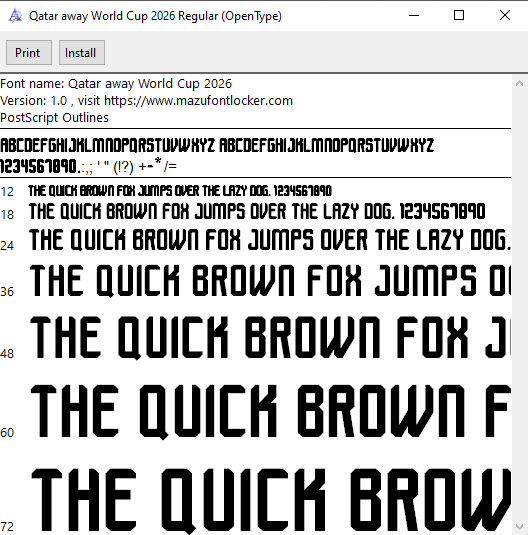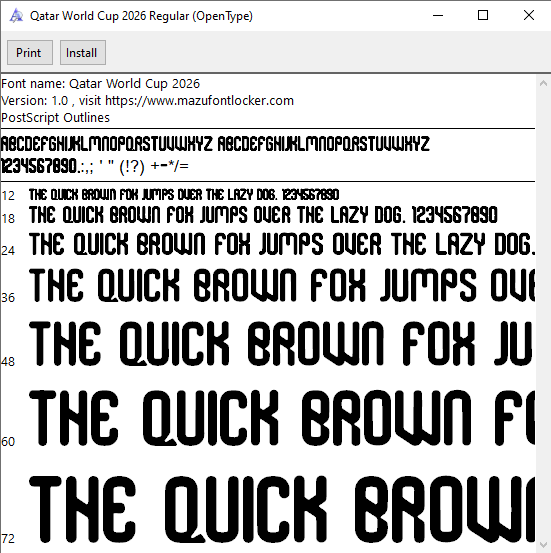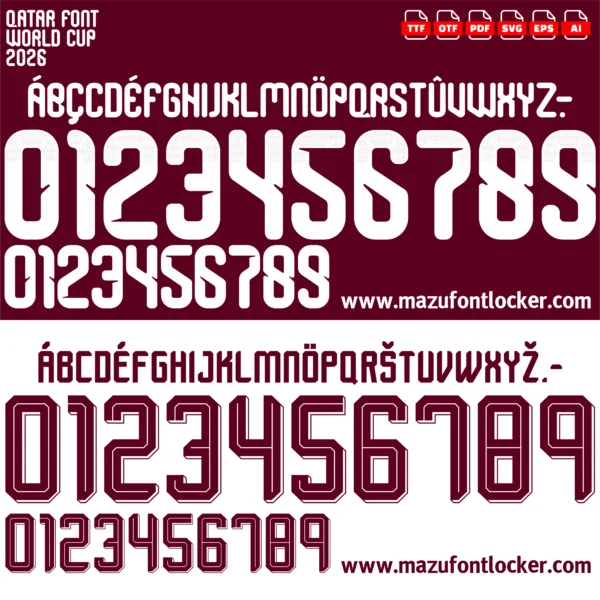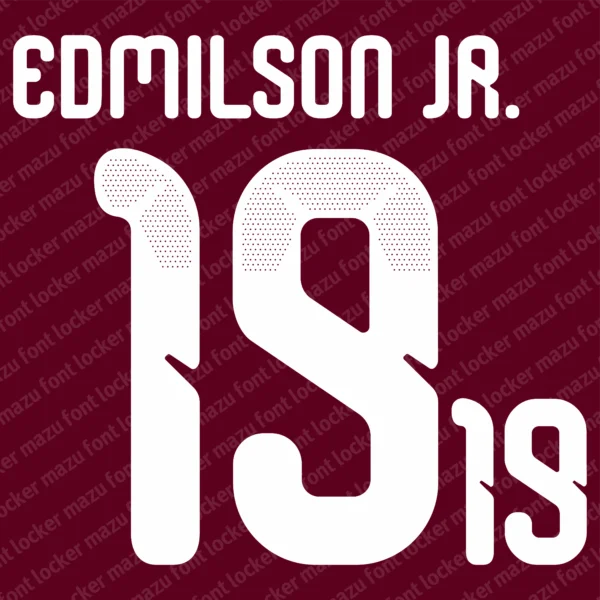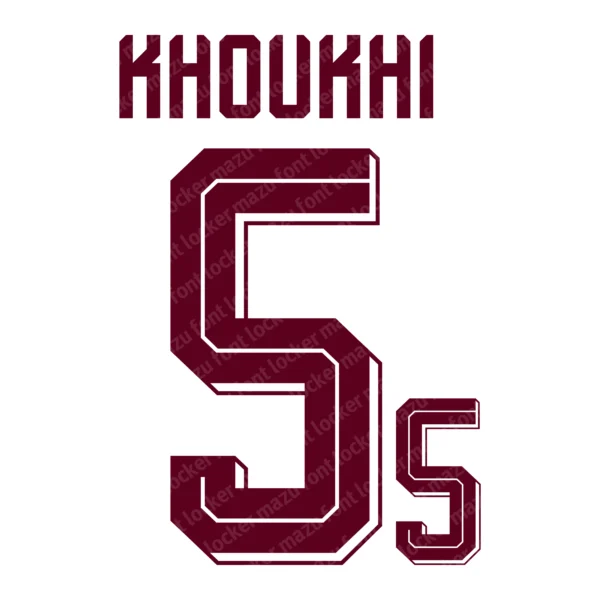
Qatar World Cup 2026 Font Vector – Amazing Premium Al Thumama Masterpiece
This premium font captures the commanding, iconic, majestic, and battle-ready lettering that embodies the unstoppable Qatari spirit — delivering raw desert passion, explosive winning energy, relentless never-say-die mentality, tactical supremacy, and legendary Arabian phoenix grit.
Qatar World Cup 2026 Font Vector – Authentic Maroons Typeface
The Qatar World Cup 2026 Font Vector is a premium typeface that accurately recreates the official match lettering worn by the Qatar national team during the 2026 FIFA World Cup campaign. This high-quality vector font kit captures the bold, modern, and elegant typography that represents the pride, ambition, and rich football heritage of the Maroons.
This font stands out because of its sharp vector precision and strong national identity. Every letter and number is crafted to match the exact style used on the players’ shirts during the 2026 World Cup campaign. Whether you are making realistic kit templates or exciting Maroons content, the Qatar World Cup 2026 Font Vector gives your designs that authentic Qatar look.
The letterforms in the Qatar World Cup 2026 Font Vector are tall, bold, and highly readable. The strokes have a strong, clean weight with excellent edge definition that looks powerful on the back of jerseys while maintaining classic Arabian elegance and modern strength.
• Full uppercase A–Z and numbers 0–9 in authentic Qatar World Cup 2026 style